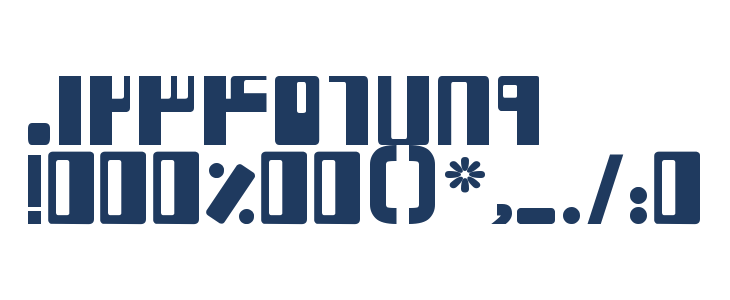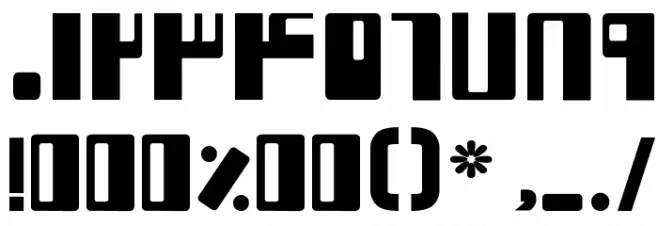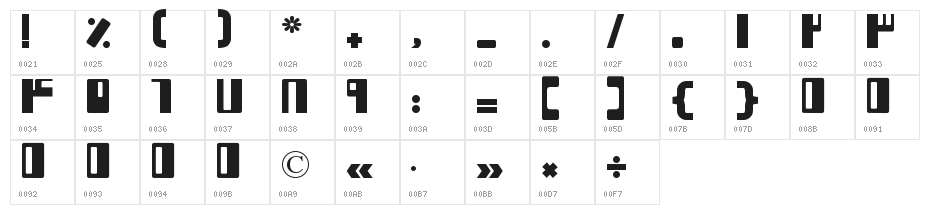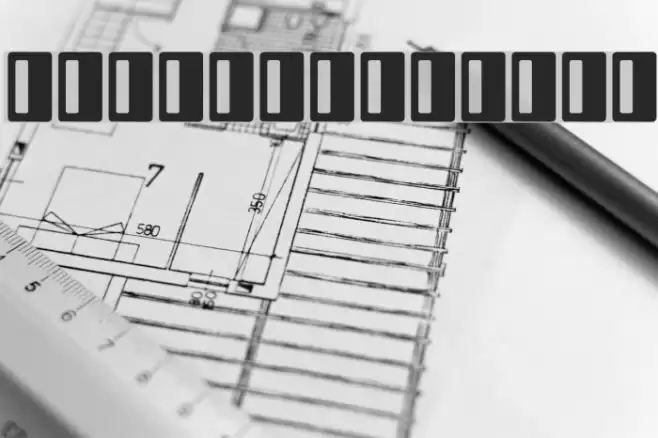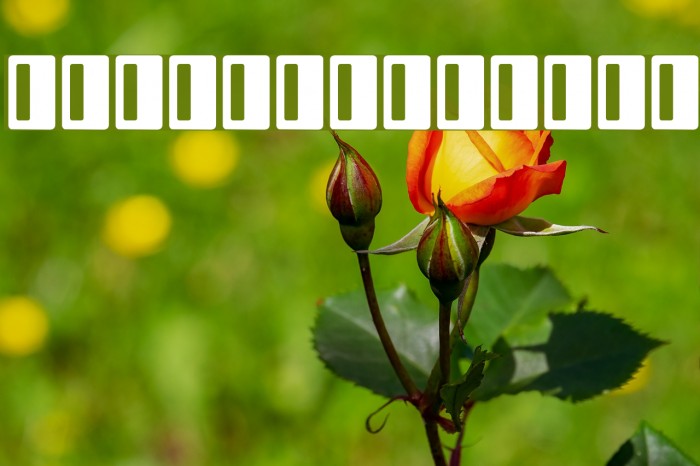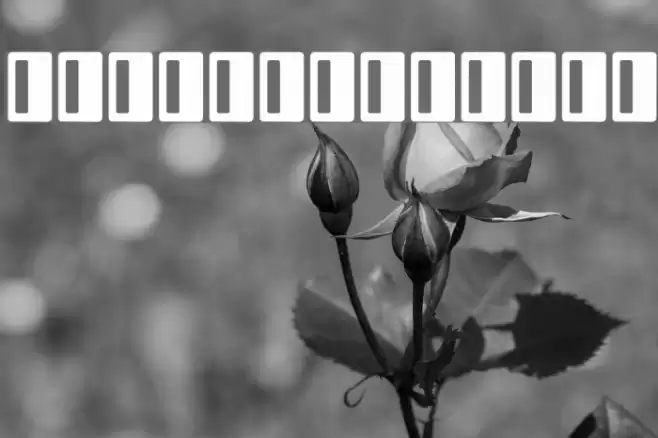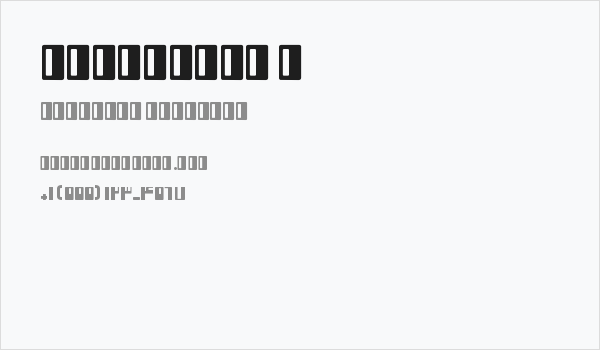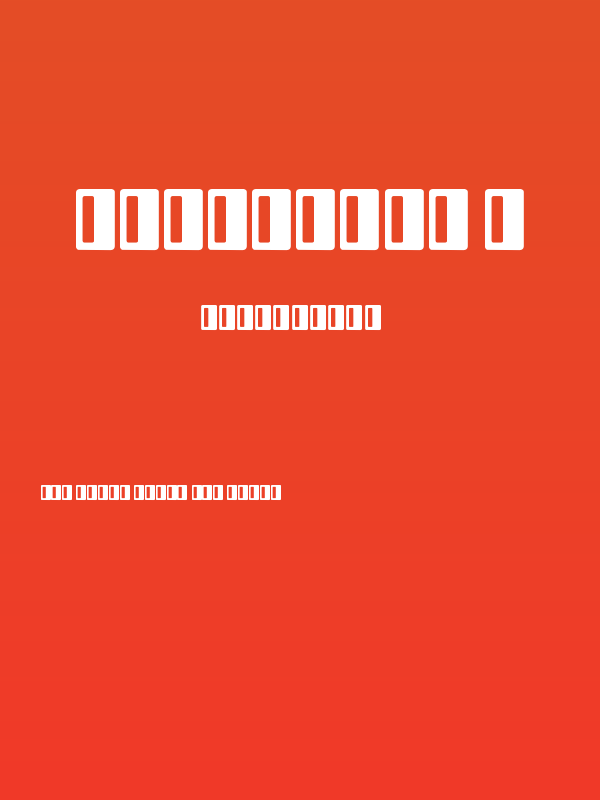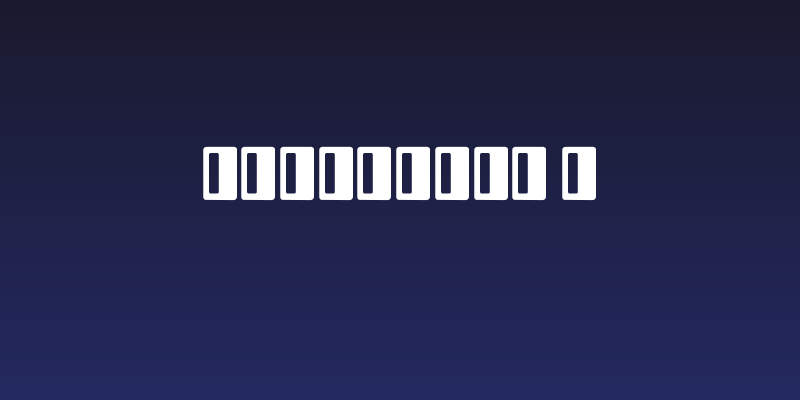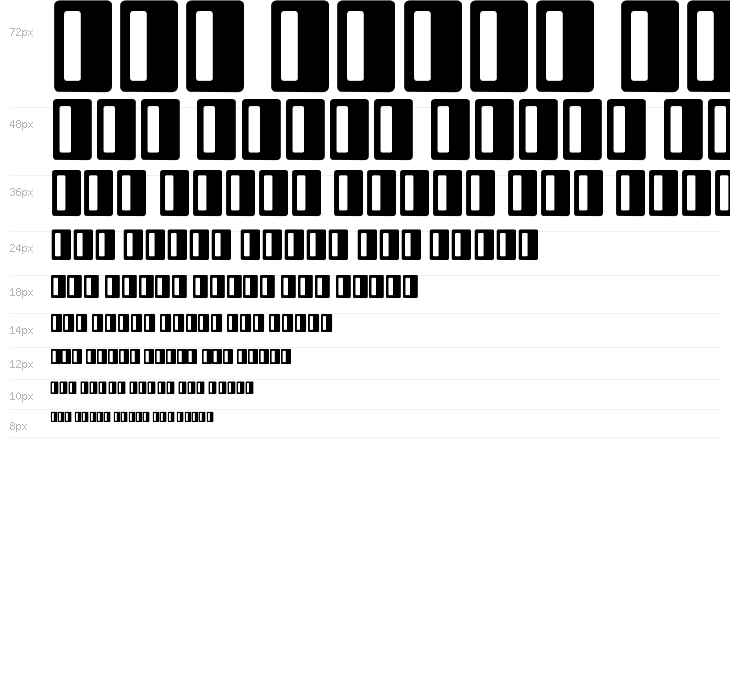
Rectangle I Font
Rectangle I Description
This font features a bold and blocky design with a strong geometric influence. Each character is enclosed within a rectangular shape, giving it a uniform and structured appearance. The characters are highly stylized, with a futuristic and digital aesthetic that makes them stand out. The font is designed to be eye-catching and is suitable for display purposes where a modern and technological feel is desired. The uniformity in character shape and size contributes to a cohesive and consistent look across all letters and symbols.
| Proposed Projects | Ideal for technology branding, digital interfaces, video game titles, and futuristic-themed posters. |